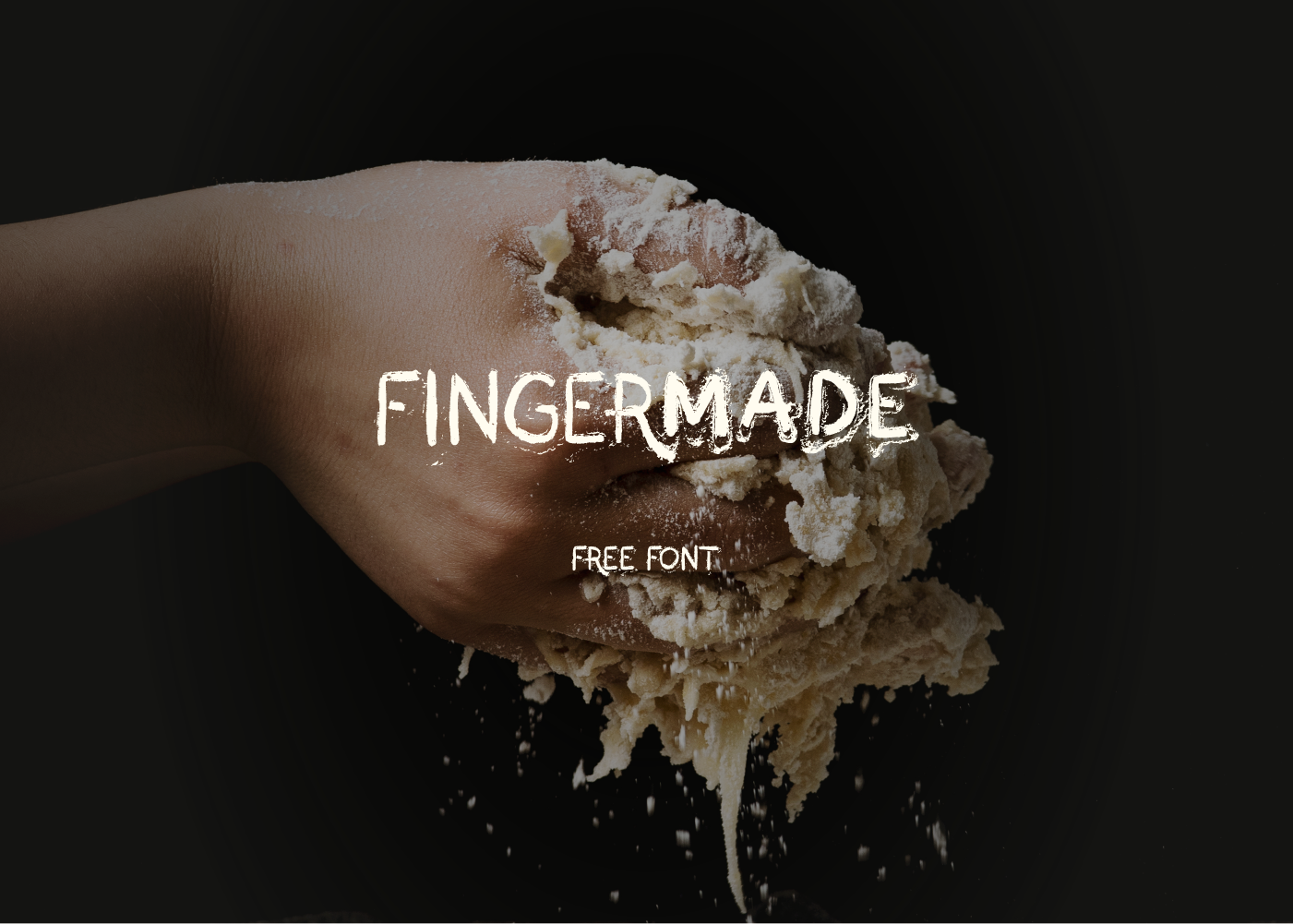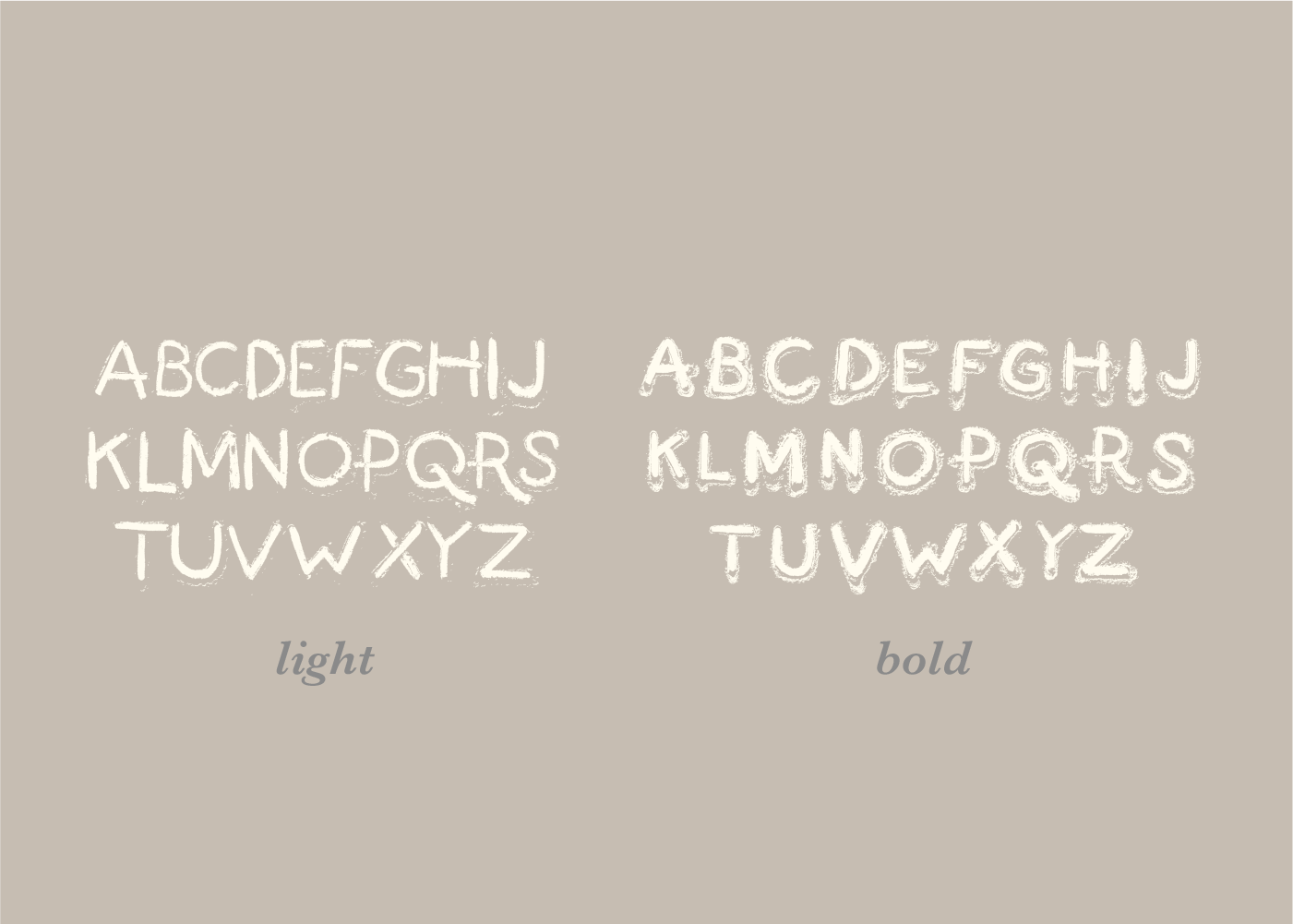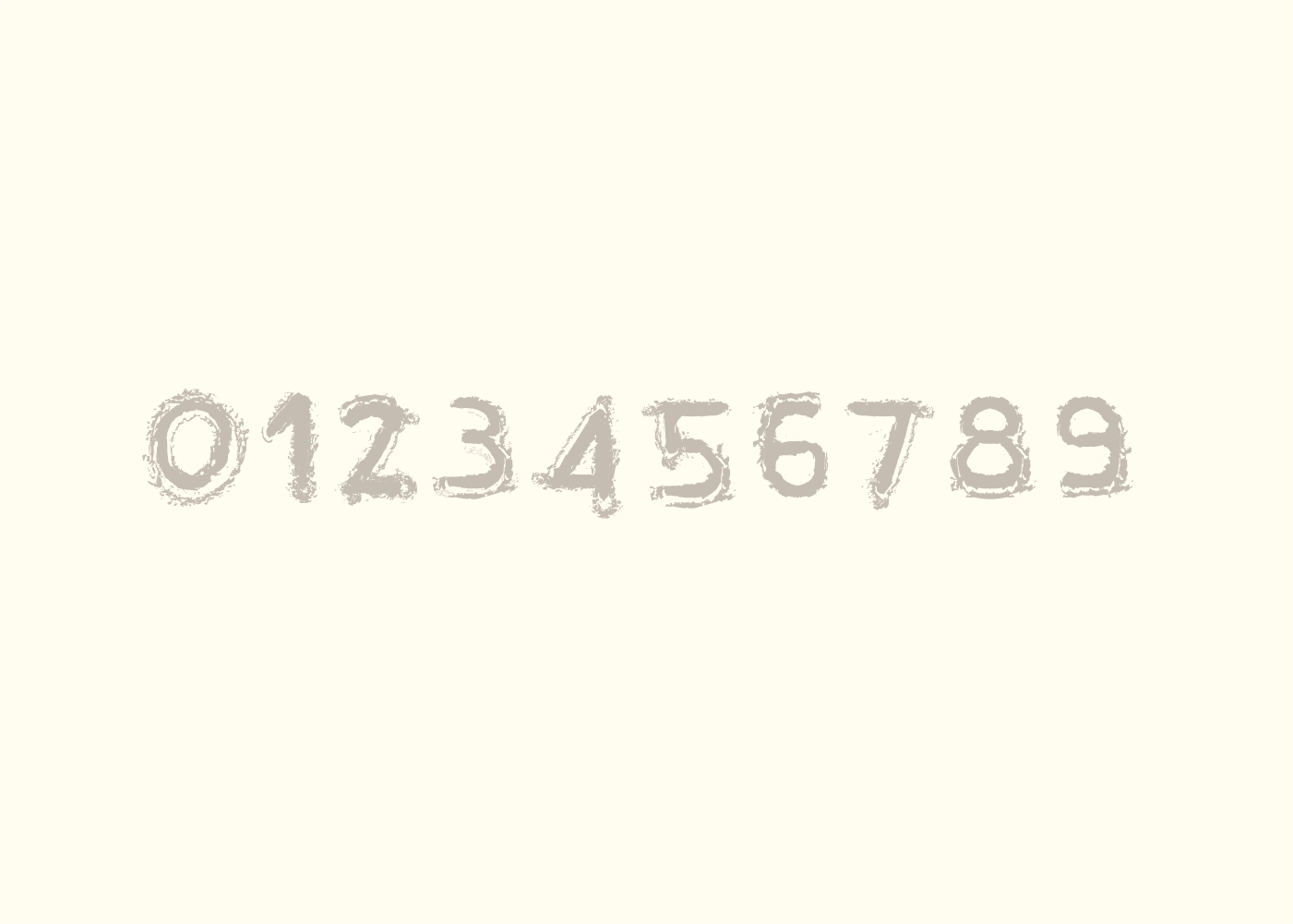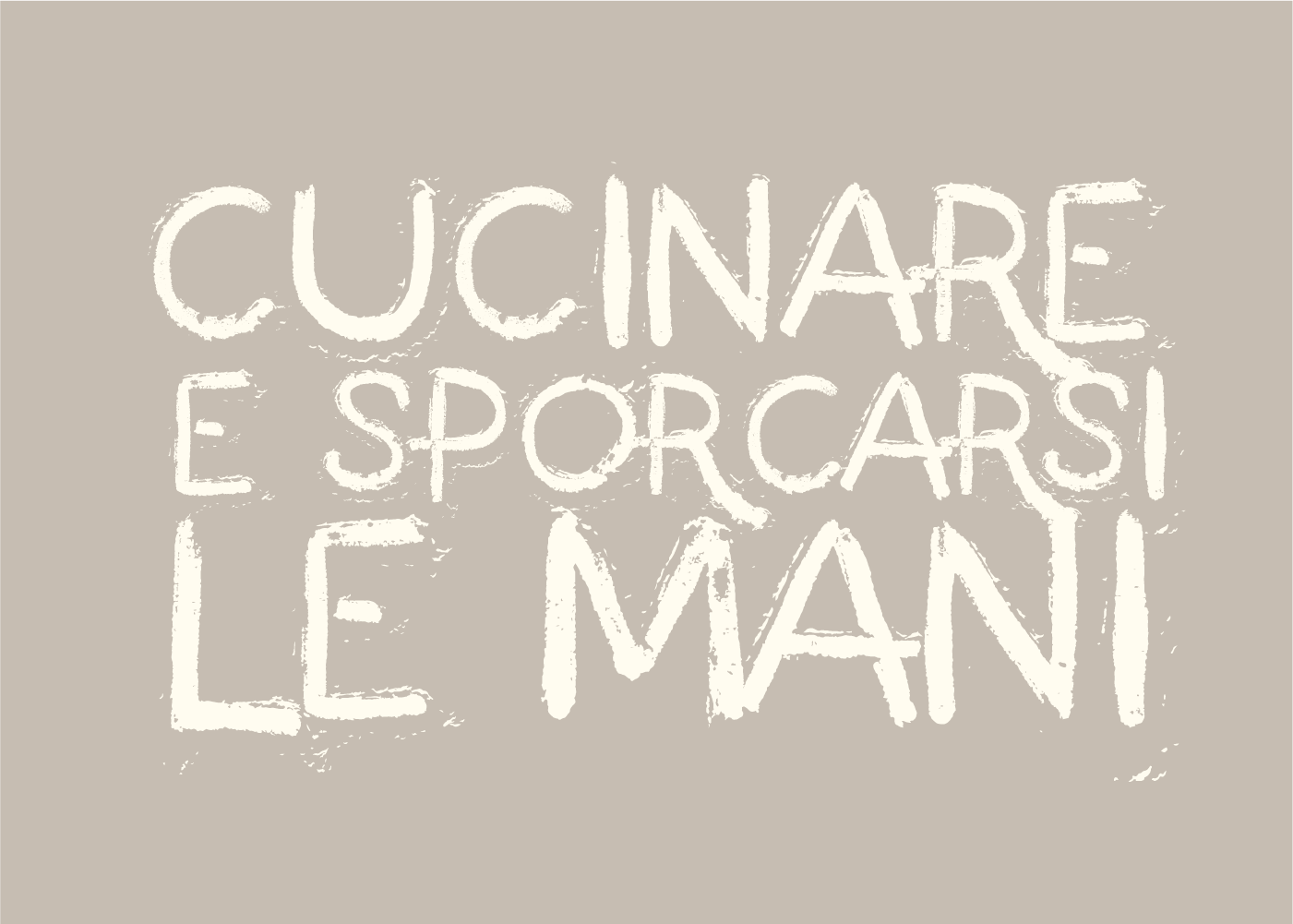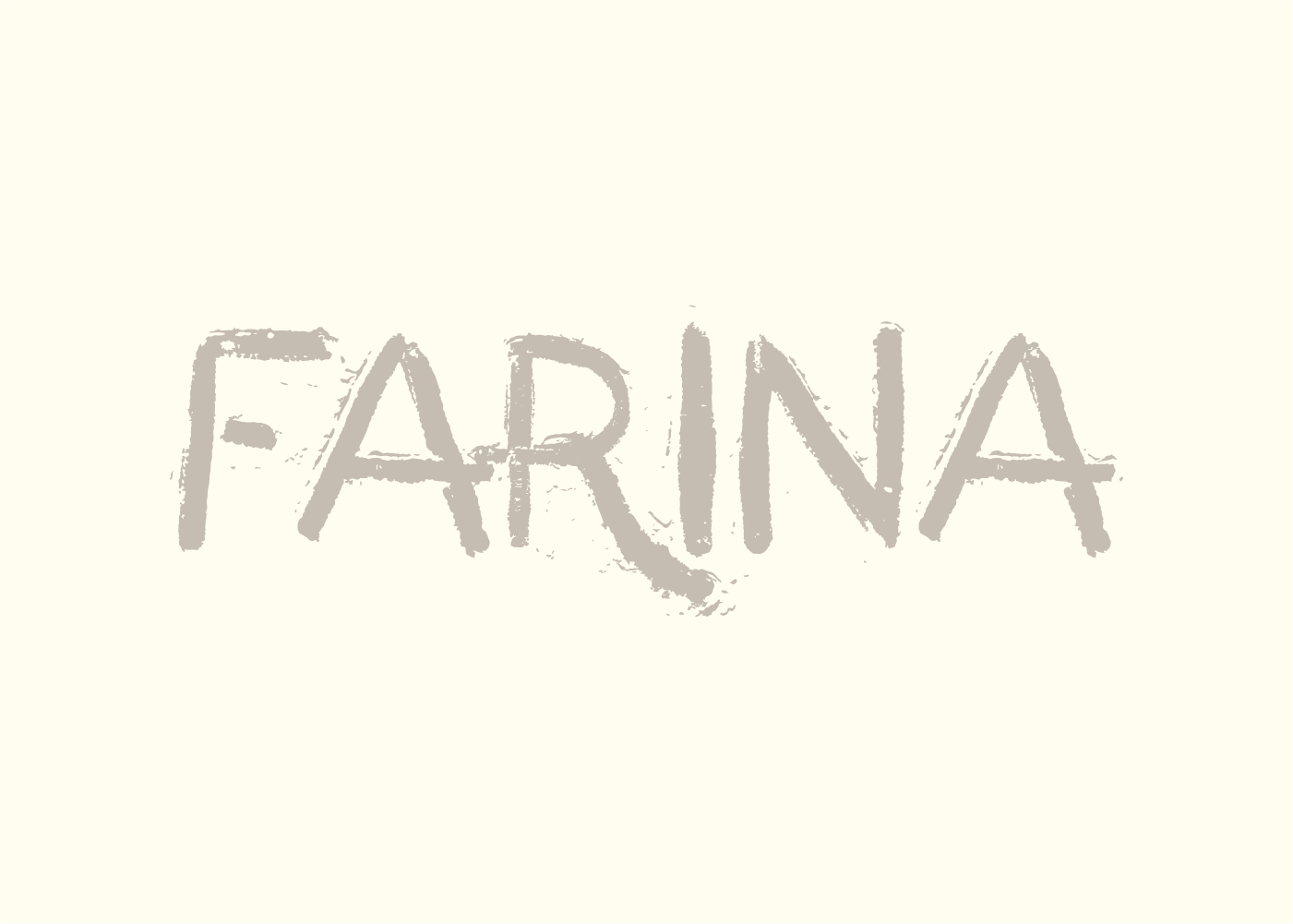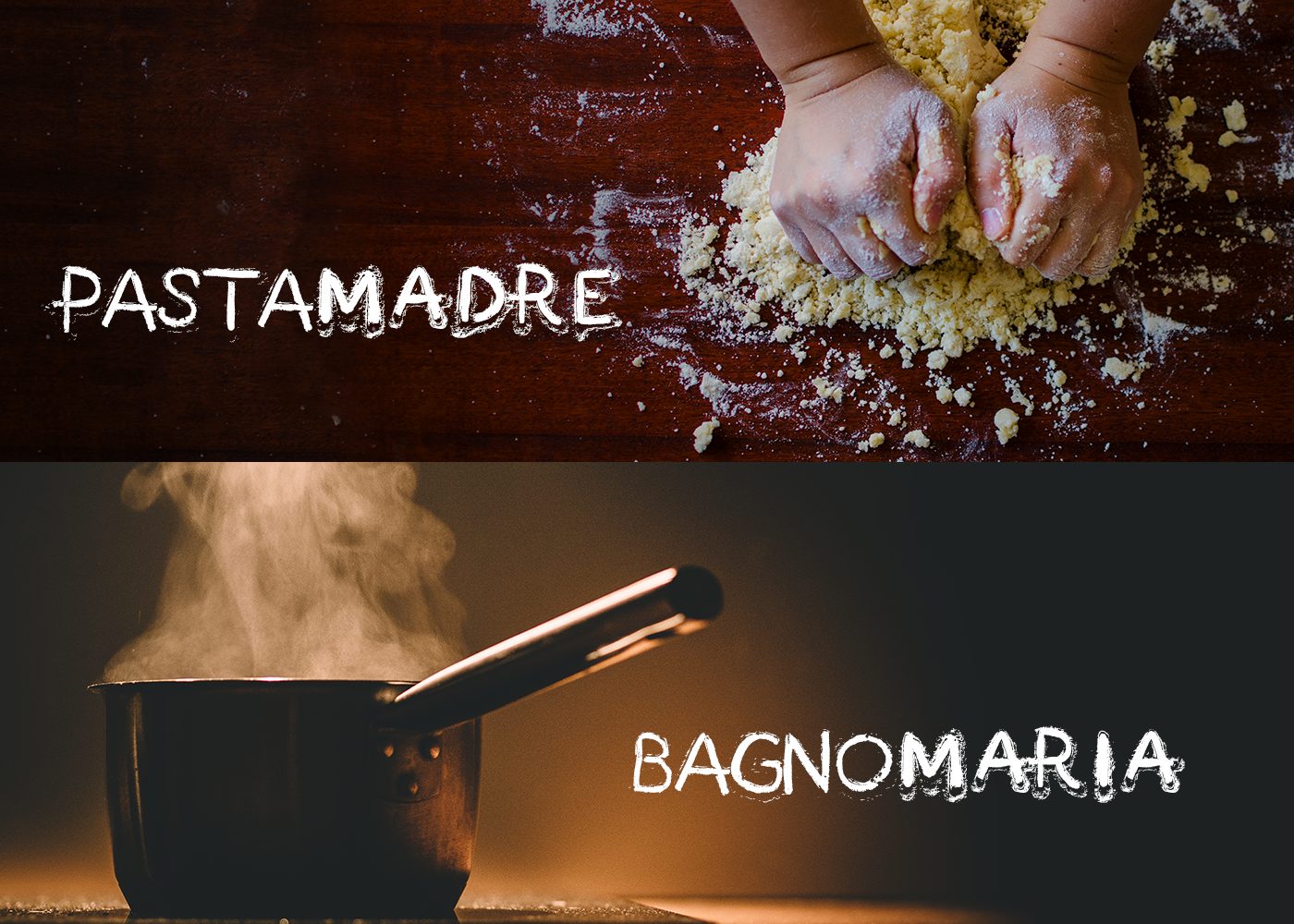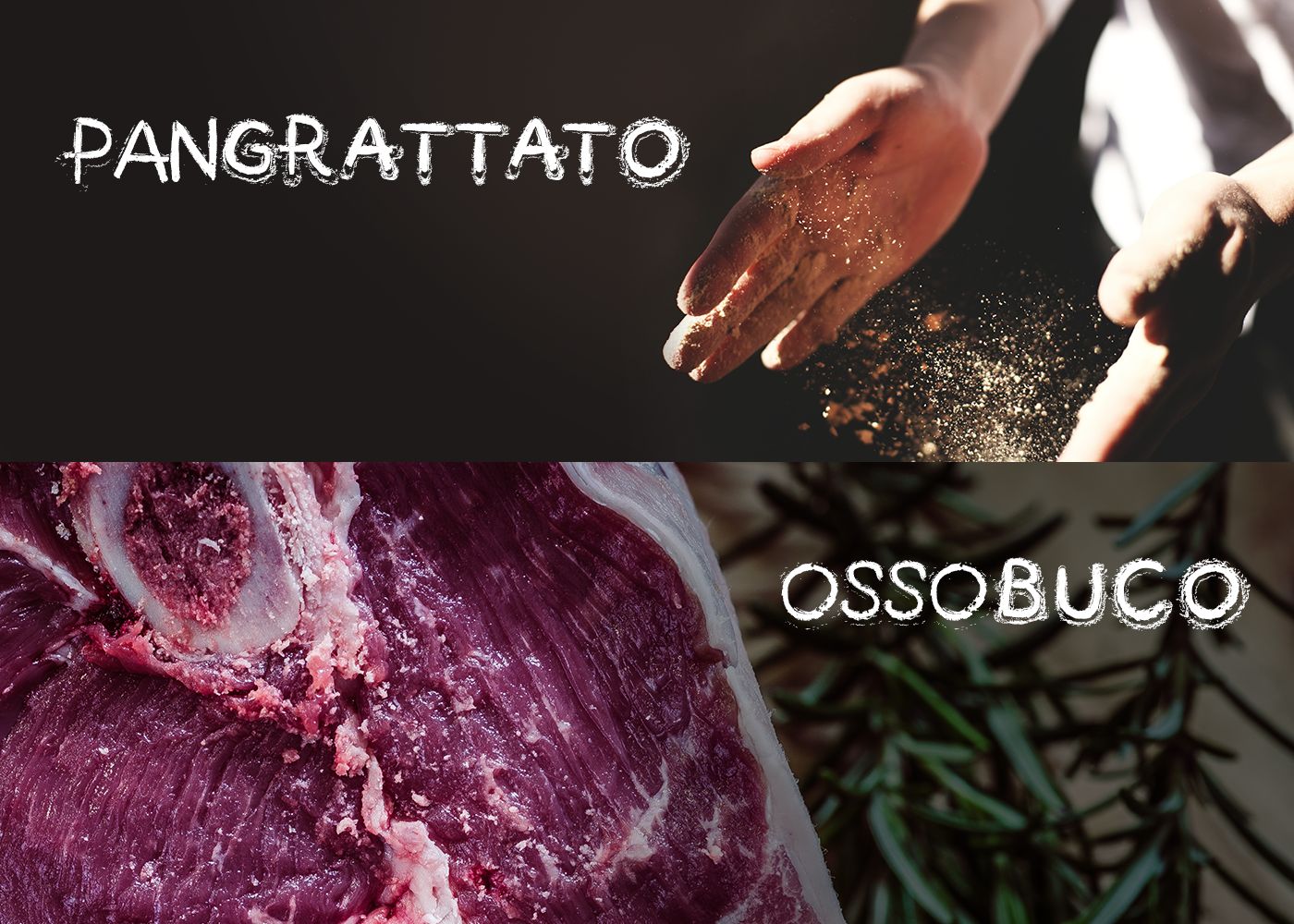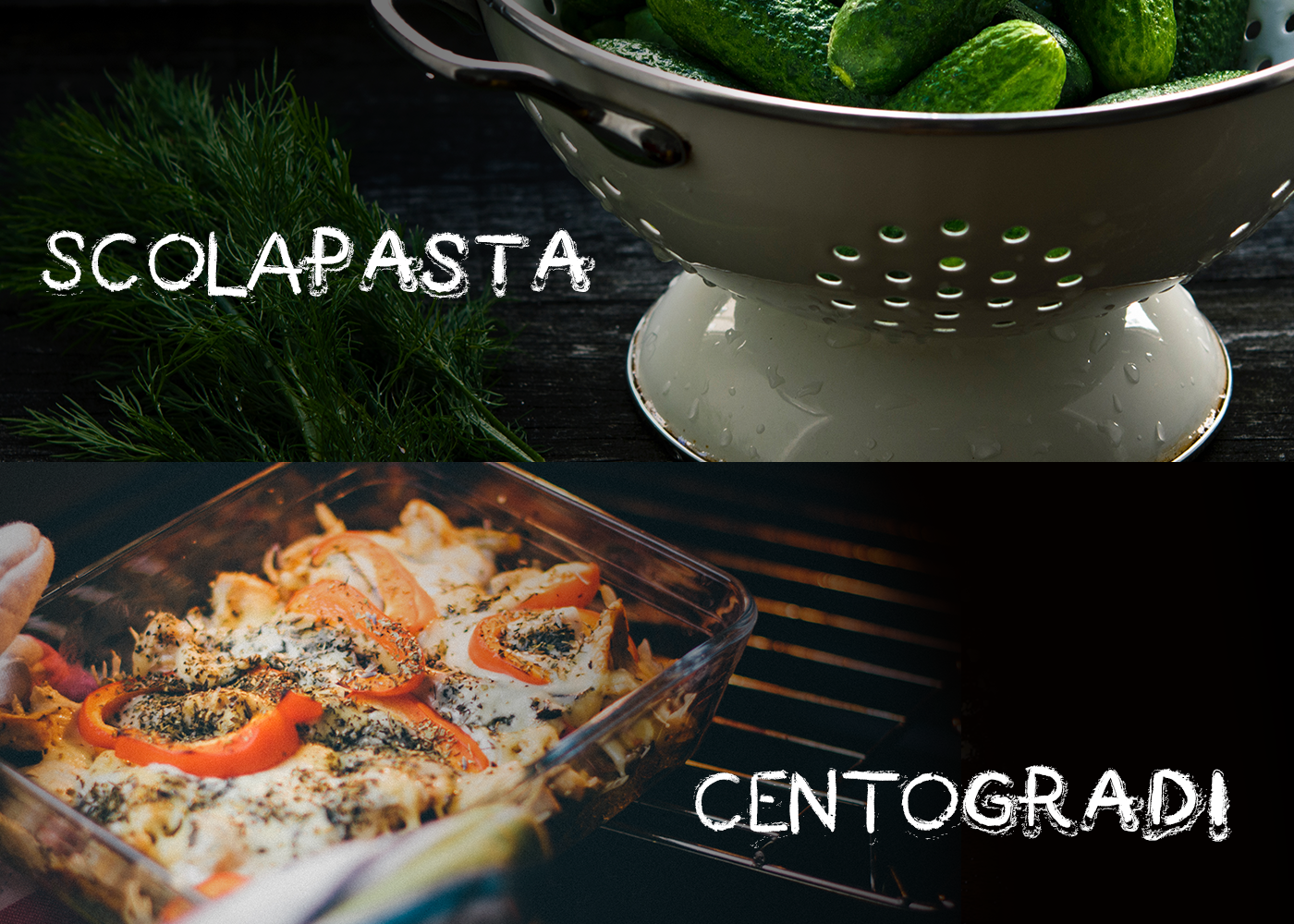
Fingermade Font
Fingermade is a relaxed and casual script font, ideal for giving your designs a textured vibe through typography. This font is charming and easy to read, and will give your designs a ton of appeal.